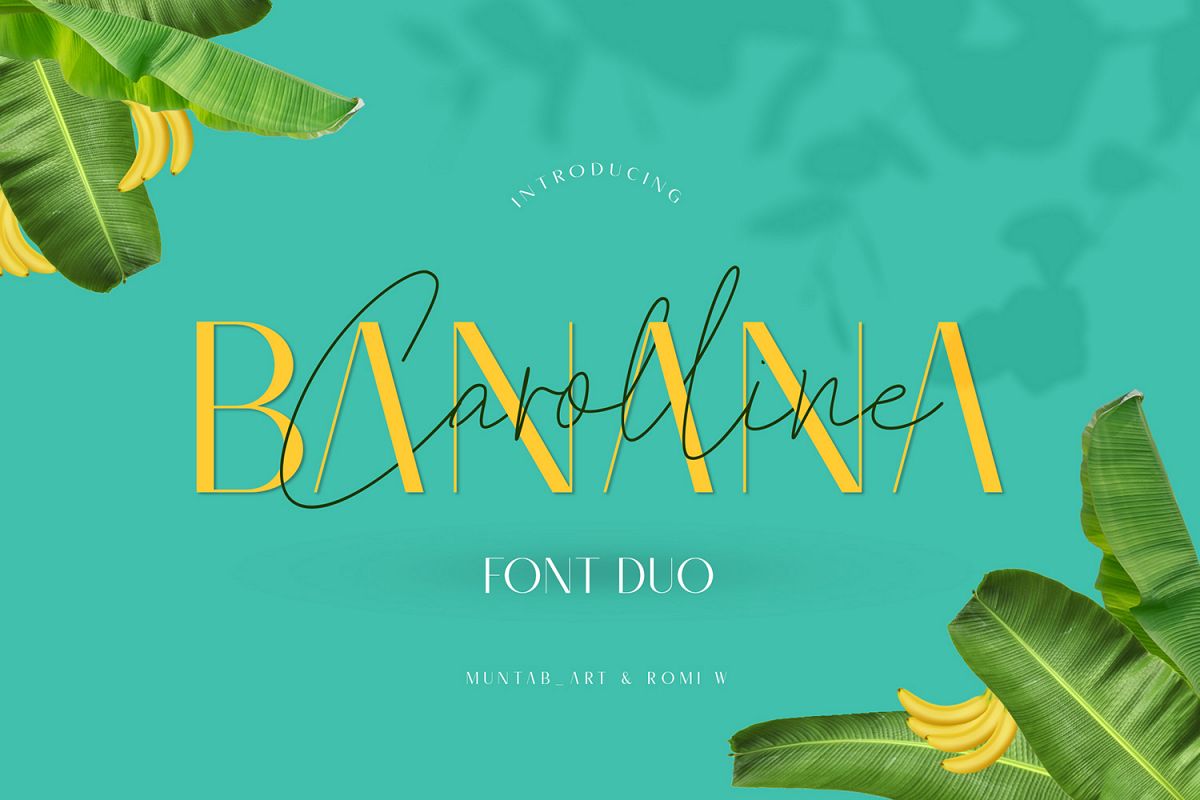
Banana Carolline
Introducing the Banana Carolline A Font Duo of playful signature and serif fonts, designed to contrast & compliment each other with beauty and colorful style. The Banana Carolline also includes a ligature, each one uniquely combining the two Banana Carolline fonts to create striking, modern logo designs for you to edit and use as your own.